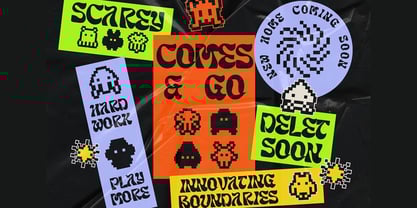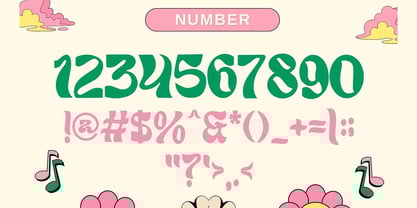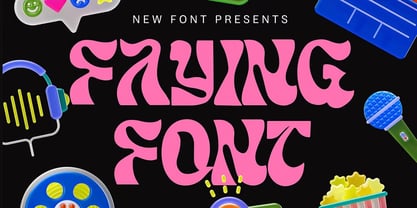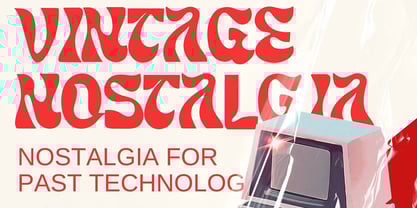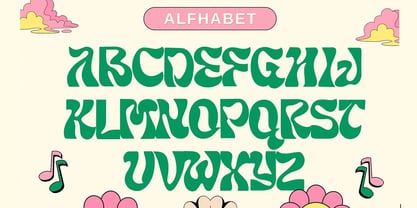
Faying
by Maghrib Type
The Faying Font Family was designed by Rizky Setyaludin and published by Maghrib Type. Faying contains 1 styles.
Faying – A Unique and Expressive Display Font
Faying is a bold and distinctive display font with a playful twist. Its thick, dynamic letterforms bring a fresh and energetic feel, making it ideal for designs that aim to stand out and make a statement.
Carefully crafted to attract attention across various media—from posters and album covers to social media graphics and bold branding—each character in Faying adds personality and visual impact to your work.
Bring creativity, expression, and bold energy to your design projects with Faying—a font made to lead with character.